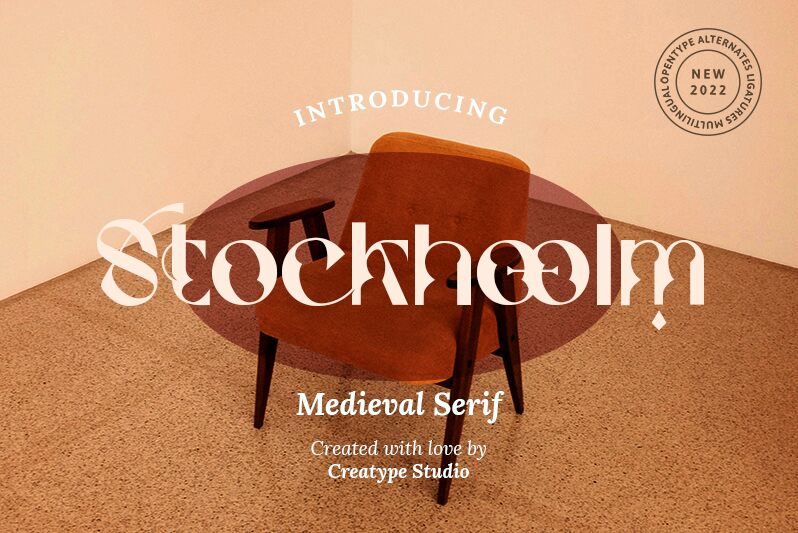
Stockhoolm
Stockhoolm font by Creatype Studio is a retro display typeface that combines ornamental and geometric elements for a contemporary aesthetic. With an abstract design, this visually striking font seamlessly merges elegance with an artistic flair, making it perfect for those who want to make an impression.
This free display font can be used in headlines, magazine covers, album artwork, posters, stationery designs, and branding projects. Use it for presentations and all types of print designs including brochures and newspapers. Fashionable websites can take advantage of the typeface as well with its eye-catching appearance both on paper and screen.